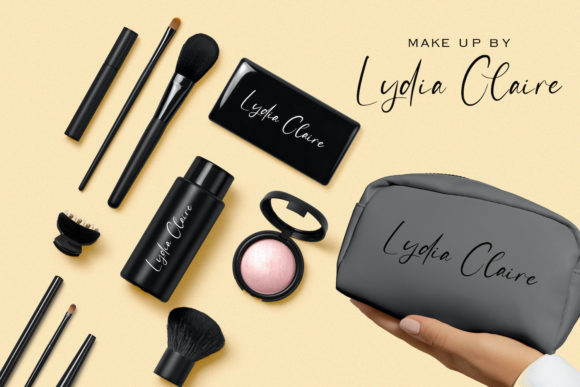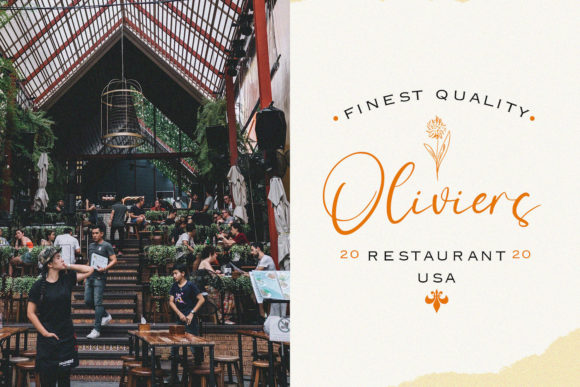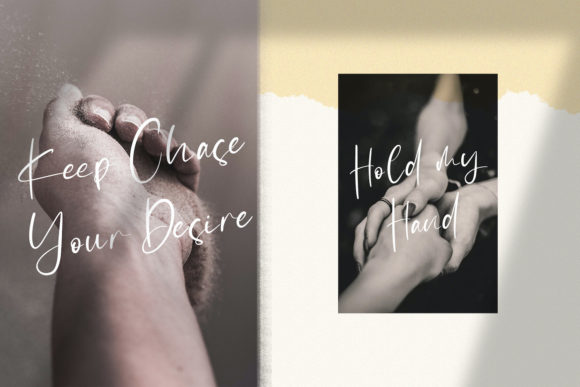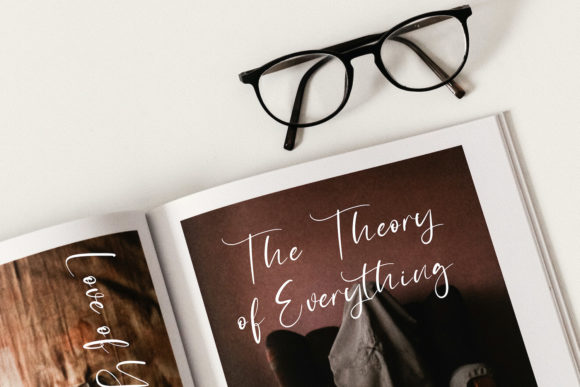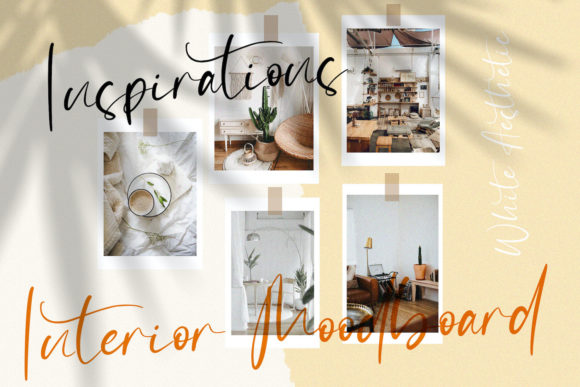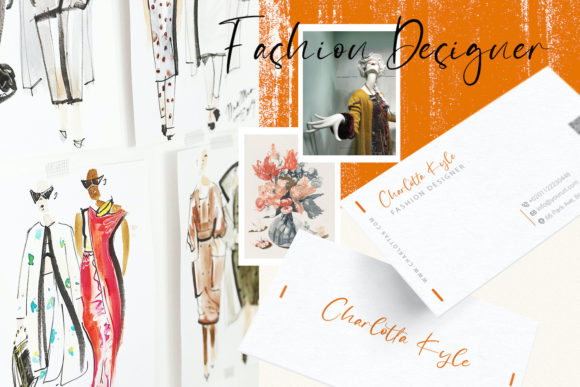
The Art of Handwritten Perfection: Unveiling the Catthy Wellingten Font
Have you ever sat down with a blank sheet of paper, a pen in hand, and a spark of creativity in your heart? The moment when words start flowing, and your handwriting transforms into a beautiful piece of art, is truly magical. This feeling of connection and expression is exactly what the Catthy Wellingten Font embodies.
This delicate, handwritten font is a masterpiece that brings a touch of elegance and sophistication to any design. Whether it’s a wedding invitation, a heartfelt thank you note, or a quote that inspires, the Catthy Wellingten Font is the perfect choice to convey your message with style and poise. For designers, this font is a valuable asset, offering a unique and timeless aesthetic that elevates any project to new heights.
Cathy Wellington Font Key Features
- Unique Characteristics: This script font features a unique blend of elegance and playfulness, with intricate details and ornate flourishes.
- Font Style: Cathy Wellington is a script font, ideal for adding a touch of sophistication and whimsy to various design projects.
Catthy Wellingten Font Review
At first glance, the Catthy Wellingten font seems like a charming and elegant choice for any design project. ✨ The font’s rounded edges and subtle curves evoke a sense of sophistication and refinement. It’s clear that the designer aimed to create a clean and modern aesthetic, and they largely succeeded.
- The font’s versatility makes it suitable for a wide range of applications, from body text to headings.
- The font’s rounded edges and subtle curves add a touch of whimsy and playfulness, making it a great choice for creative projects.
- The font’s legibility is excellent, making it easy to read even in smaller sizes.
However, there are some limitations to consider. ⚠️ The font may not be the best choice for projects that require a bold or dramatic look, as it can come across as a bit too subtle. Additionally, the font’s rounded edges can sometimes make it difficult to read at very small sizes.
Overall, I think the Catthy Wellingten font is a solid choice for designers looking for a clean and modern aesthetic. While it may not be the most exciting or bold font, it’s a reliable and versatile option that’s sure to please. With a bit of creativity and experimentation, I think designers can really make this font shine.
For best results, use the Cathy Wellington font for titles and headings, and pair it with a clean sans-serif font for body text.
Experiment with different font sizes and styles to create visual hierarchy and emphasis.
Use the font in combination with bold and italic text to add depth and interest to your design.
The Cathy Wellington font is ideal for:
Food and beverage branding
Home decor and interior design
Personal branding and stationery
Alternatives to Catthy Wellingten Font
Playfair Display is a luxurious, elegant serif font ideal for high-end branding, magazine covers, and other design elements that require sophistication and refinement. It’s a great choice for designers looking to create a sense of luxury and sophistication, similar to Catthy Wellingten Font.
Comparison: While both fonts have a similar elegant feel, Playfair Display has a more refined and classic look, making it suitable for more formal designs.
Q: Is Catthy Wellington Font available in multiple weights and styles?
Yes, the Catthy Wellington Font family includes multiple weights and styles, including Light, Regular, Medium, Bold, and Extra Bold. This allows designers to choose the perfect weight and style to suit their design needs and create a cohesive visual identity.